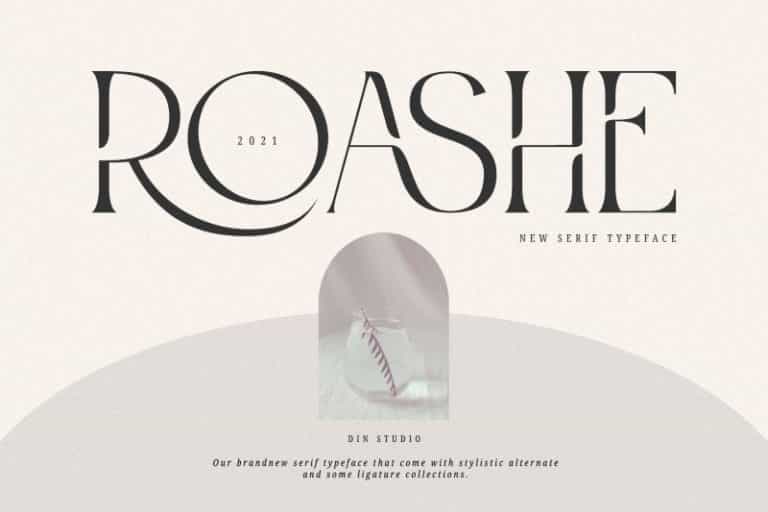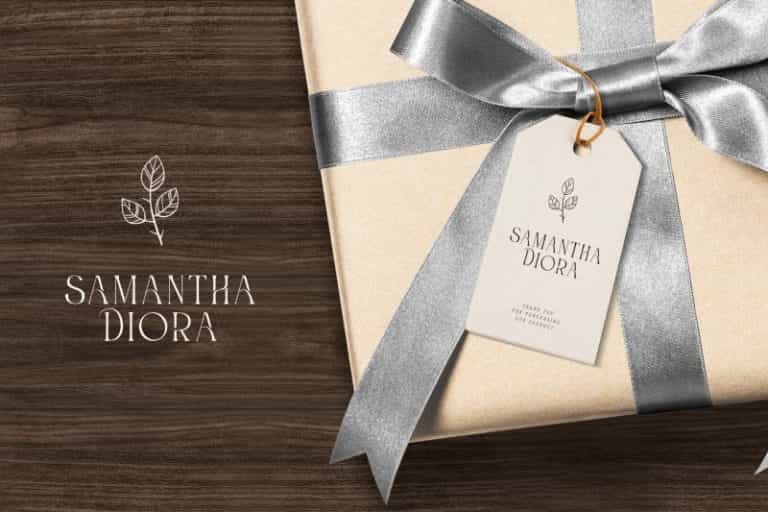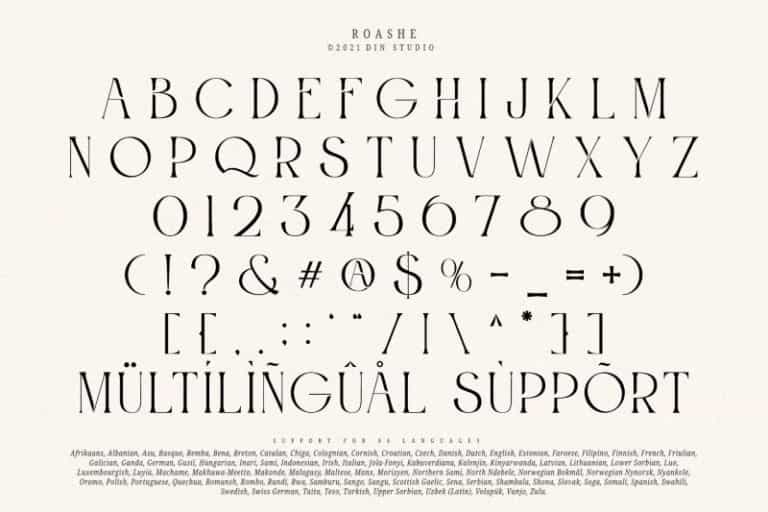
Roashe Serif Font is one of the most beautiful, elegant yet robust fonts on the market today. Roashe was designed to present a contemporary yet elegant appearance of any typeface you create; featuring all uppercase characters for easy usage when posters, titles branding or logos need to be created. It is perfect for posters, titles branding logos and more!